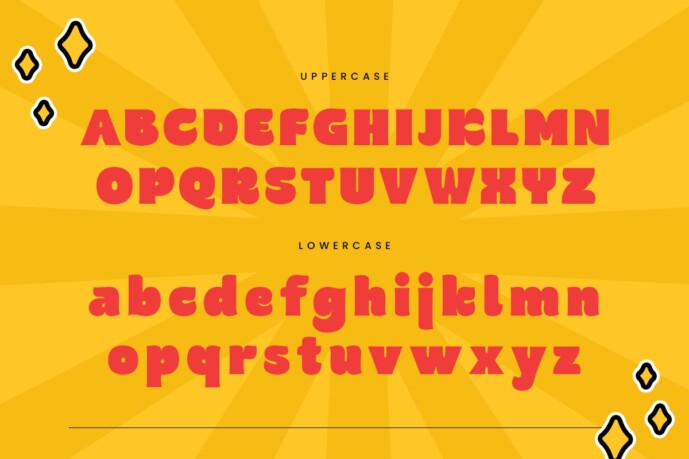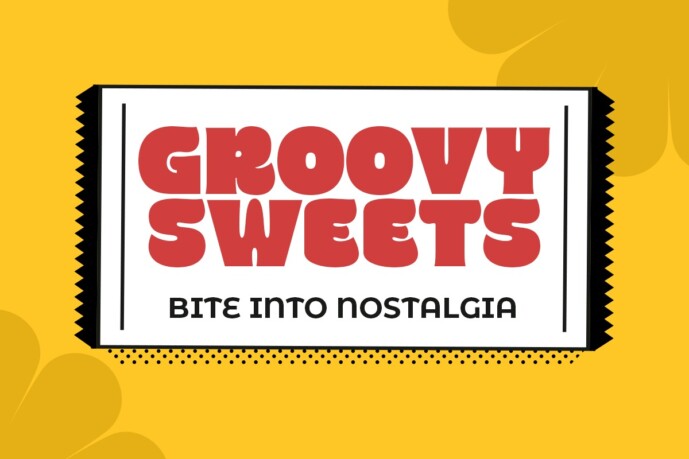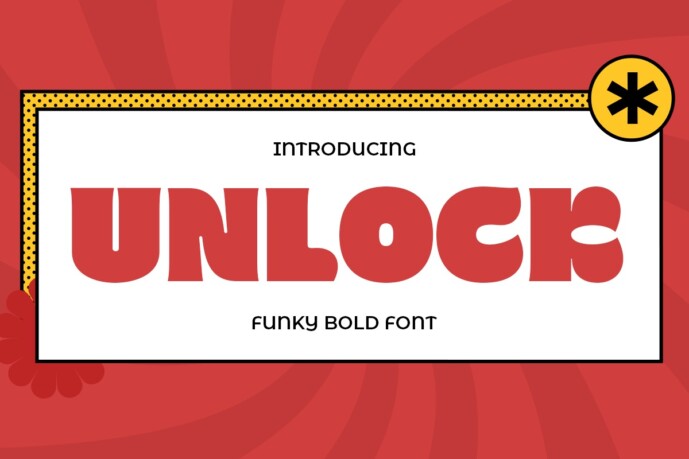
Unlock Font is a bold and original display font designed to bring dynamic personality and energy to your projects. Inspired by the dynamic and playful styles of retro designs, Unlock adds a unique touch to every creation. Its distinctive characters and bold lines make it ideal for grabbing attention and standing out. Whether you’re designing posters, logos or social media graphics, Unlock will enhance your work with its expressive style.
The story of Unlock is one of creativity and fun. Developed to break the mold of traditional fonts, Unlock combines boldness with whimsy. Each character is designed to stand out and bring your designs to life, making it ideal for projects that require a little more personality. From playful branding to eye-catching headlines, Unlock is the font of choice for designers looking to make a memorable impact.
Unlock offers a wide range of features to meet your creative needs. With a complete set of punctuation marks, numbers and symbols, as well as upper and lower case letters, it ensures versatility for all projects. It supports multiple languages, allowing for global application. Available in different file formats, Unlock integrates seamlessly with your design software, giving you endless possibilities for creativity.